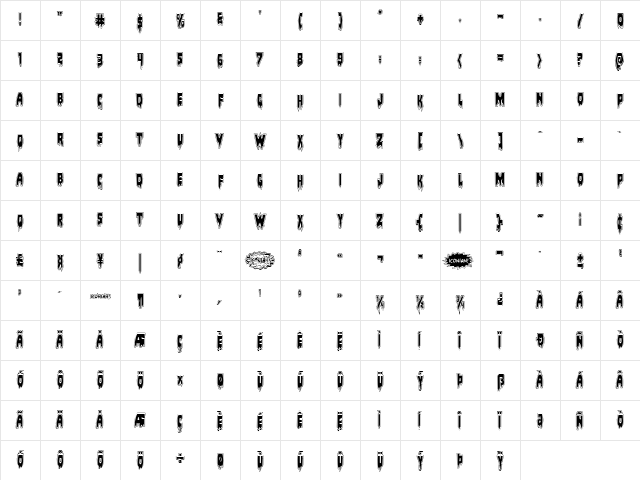
Bloodlust Academy Regular
Design Context for Bloodlust Academy Typeface
Bloodlust Academy carries an unsettling edge — its distorted letterforms are built to unsettle, perfectly suited to horror, Halloween, and dark creative work.
Perfect for anything that needs to unsettle — game titles, horror branding, and macabre invitations.
Font Pairing: Pair with a clean neutral sans-serif for body copy to let Bloodlust Academy's character lead without overwhelming the composition.
Pro Tip: Use Bloodlust Academy at larger display sizes for maximum impact. Consider generous tracking to let the disturbing character of each letterform breathe.